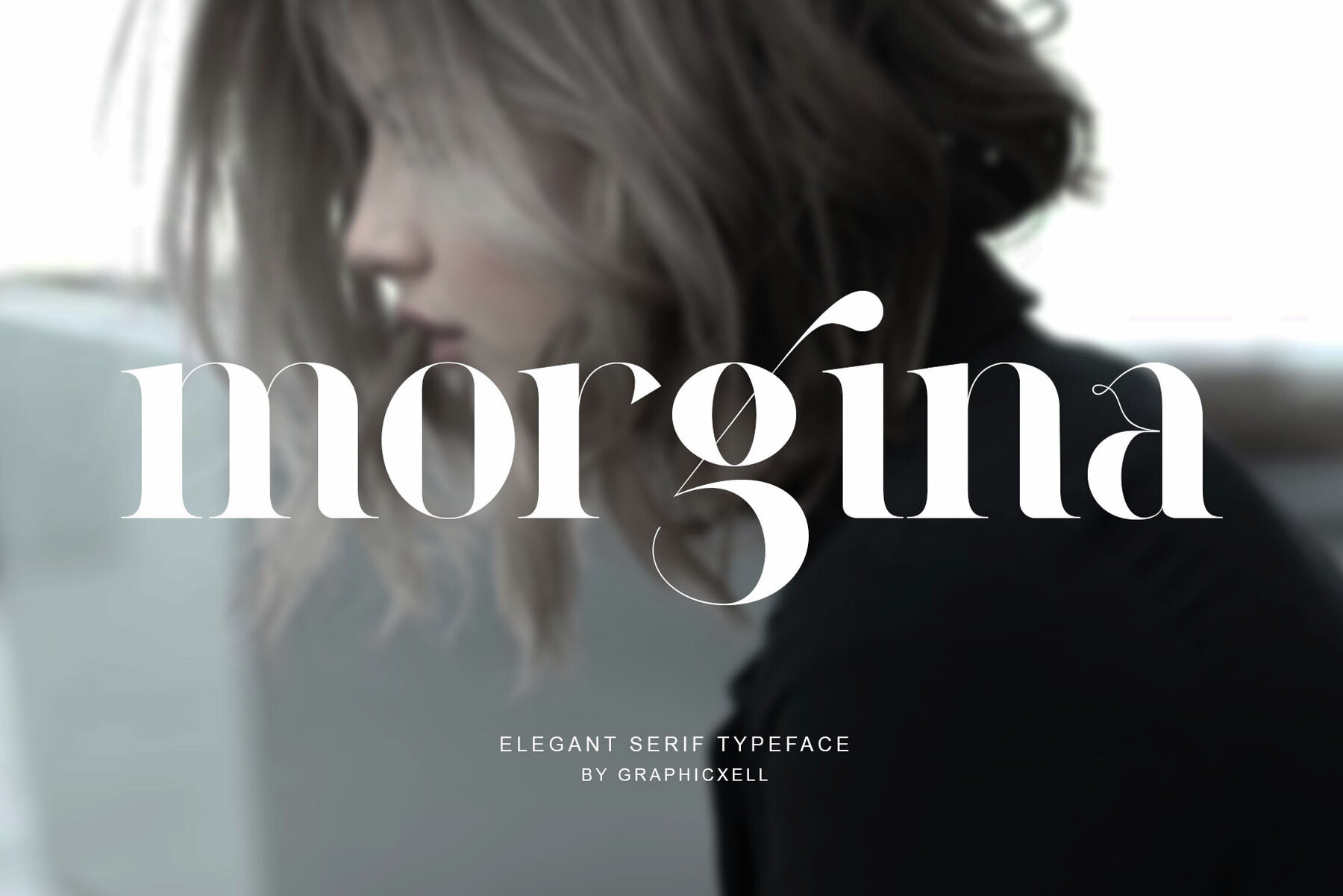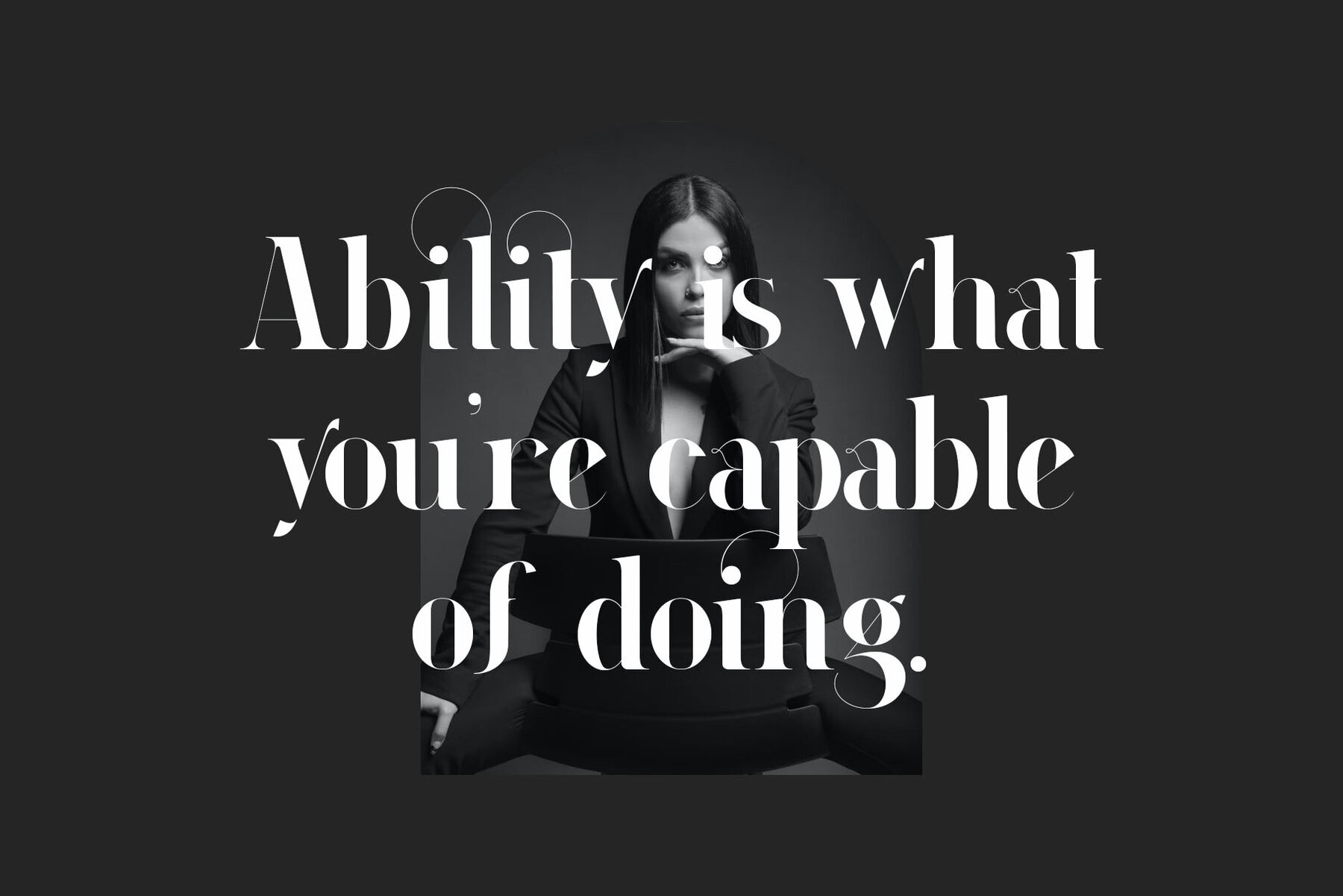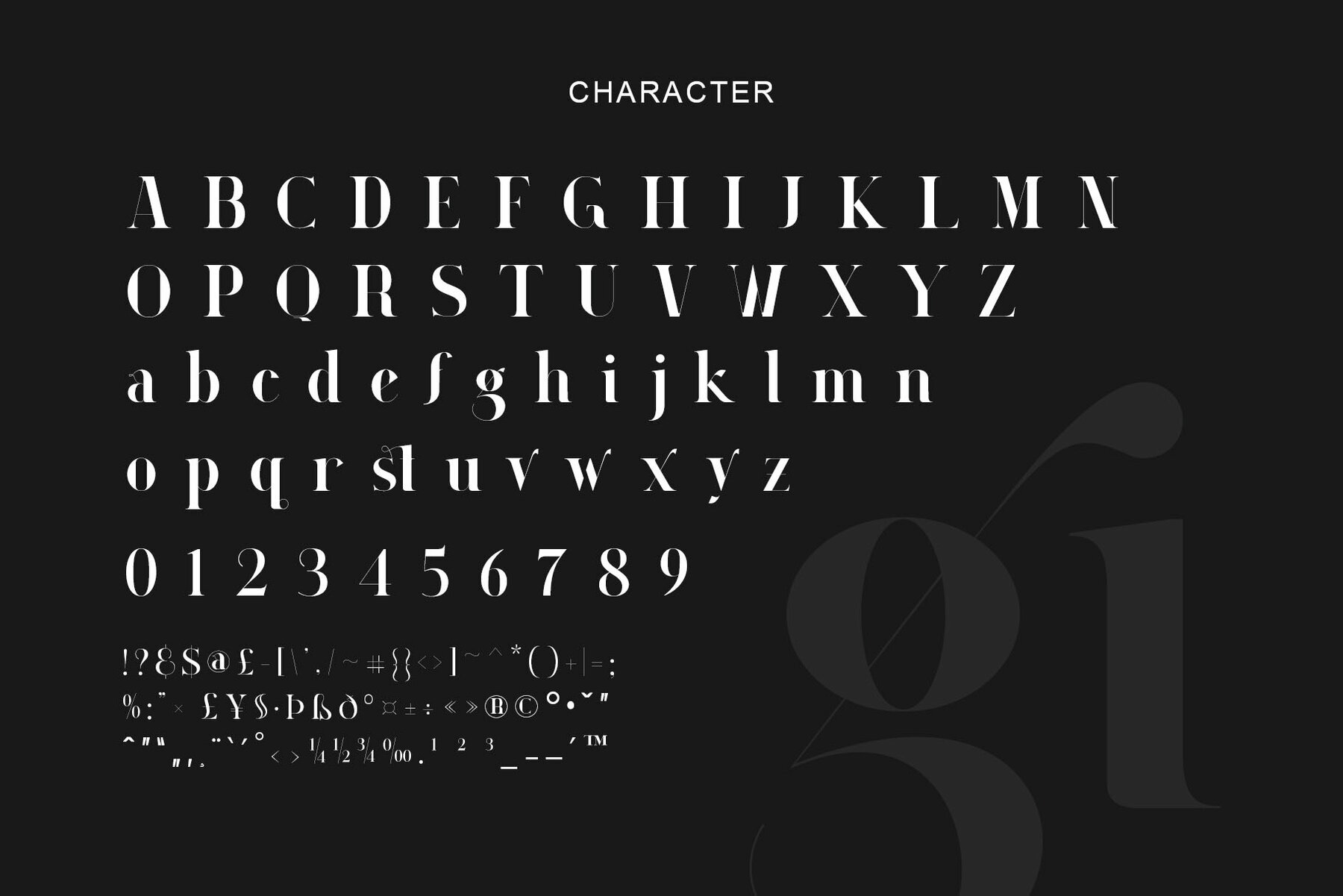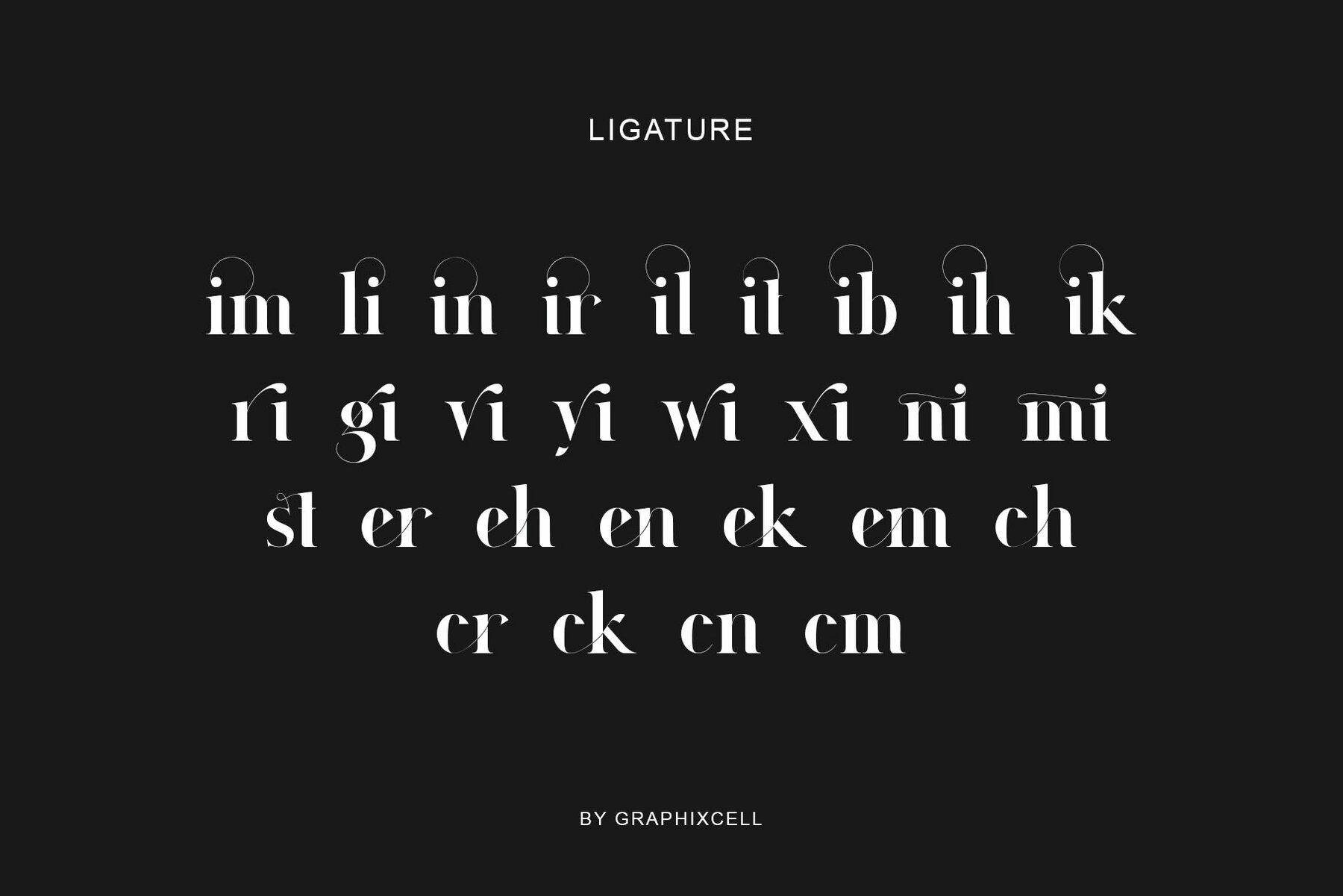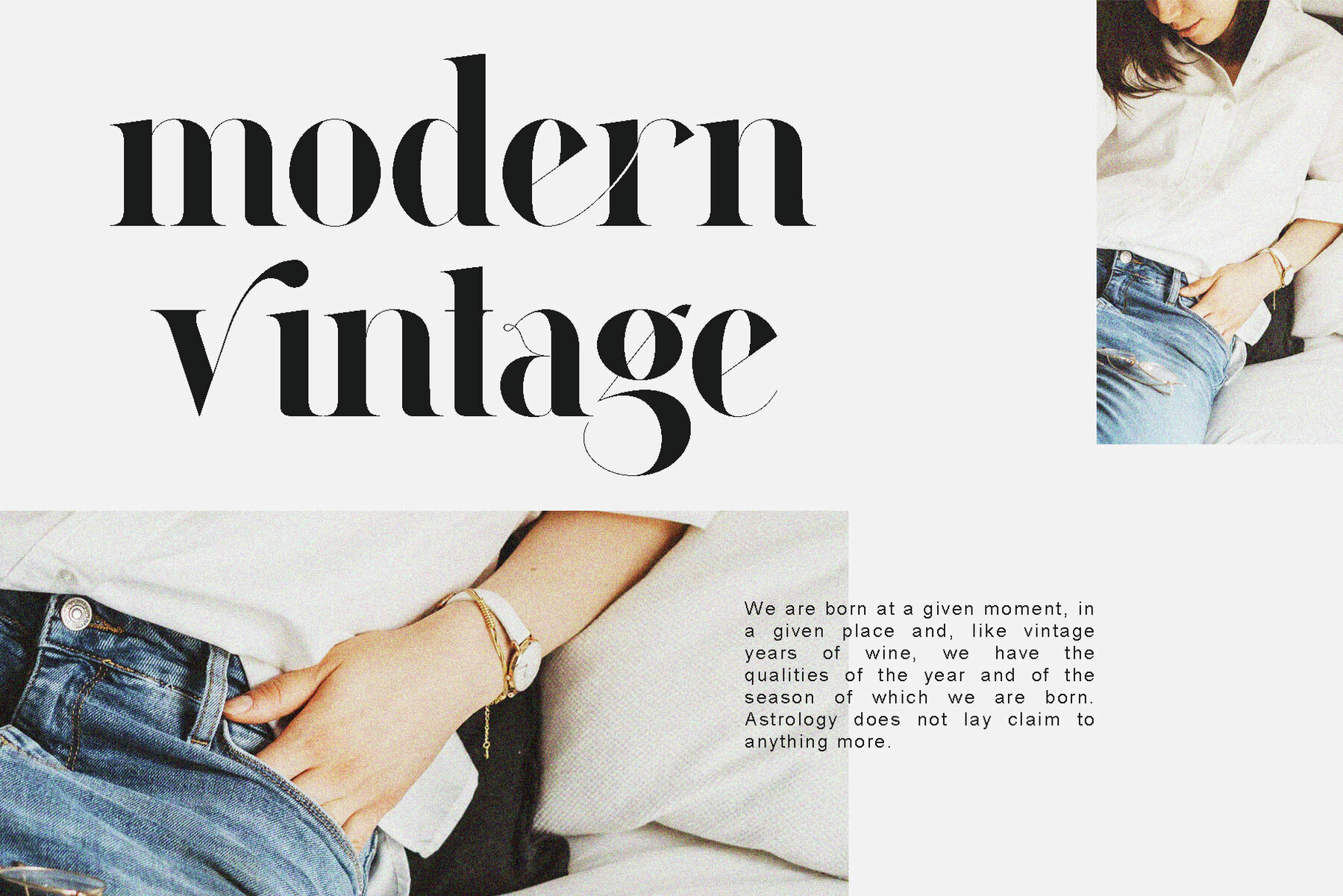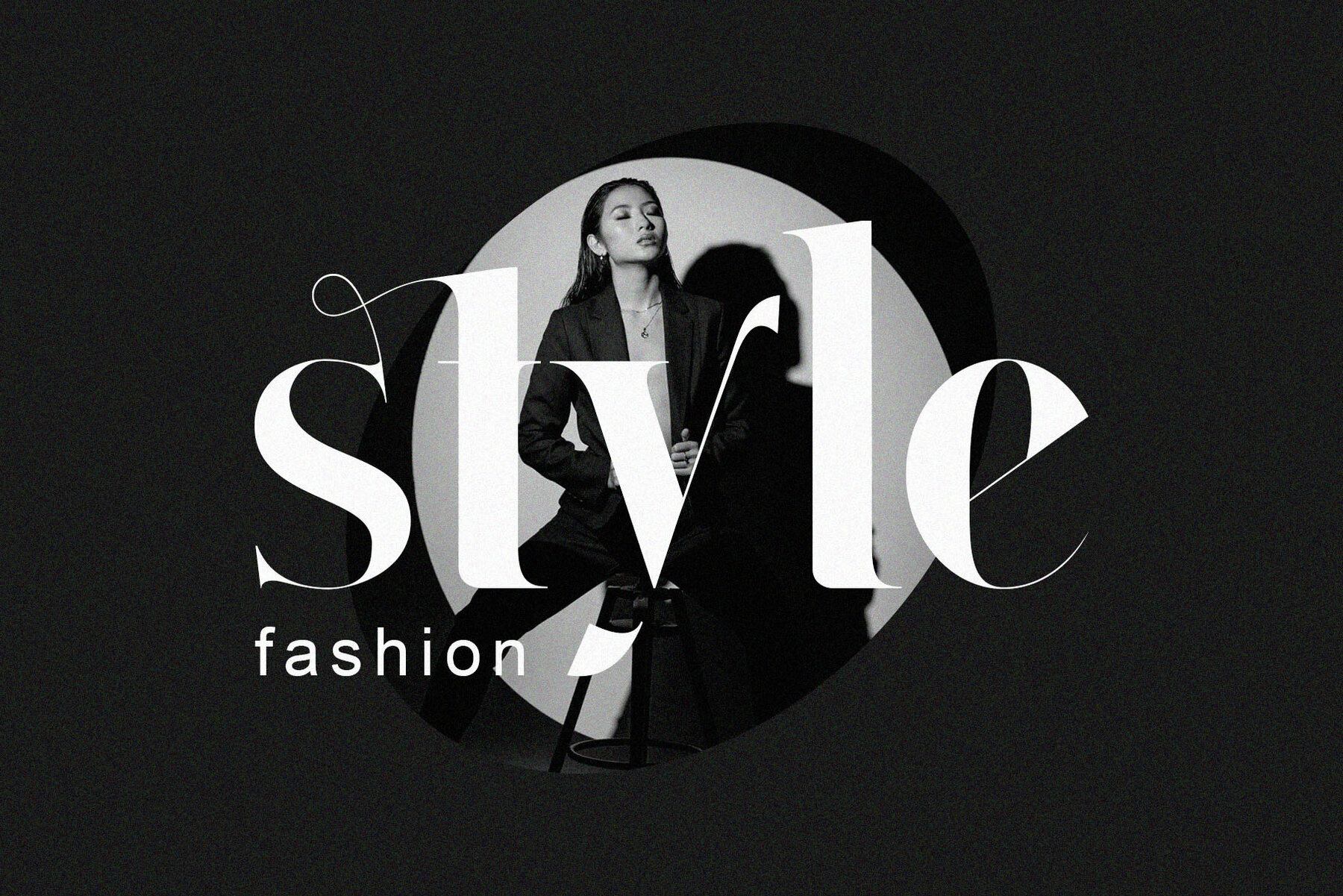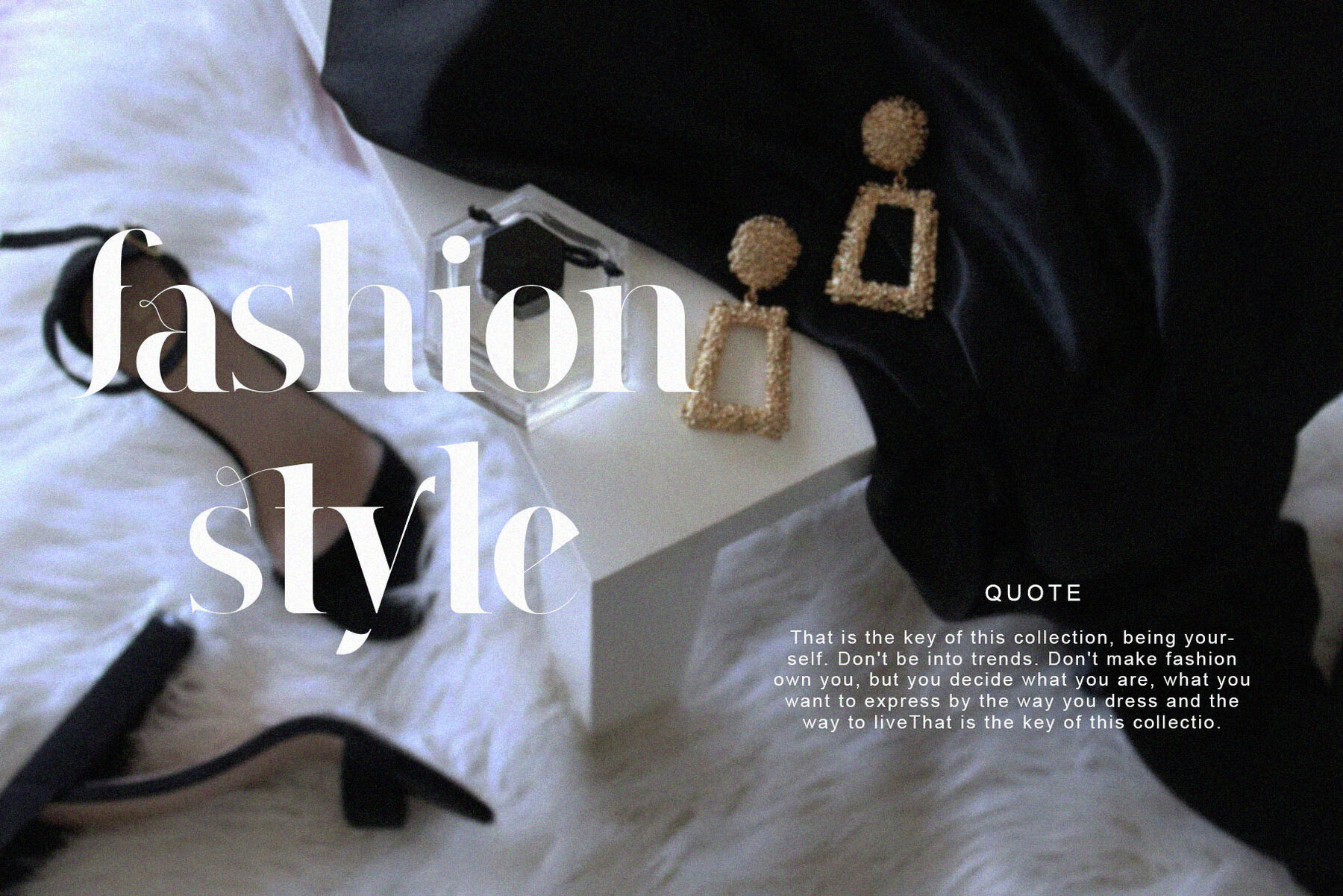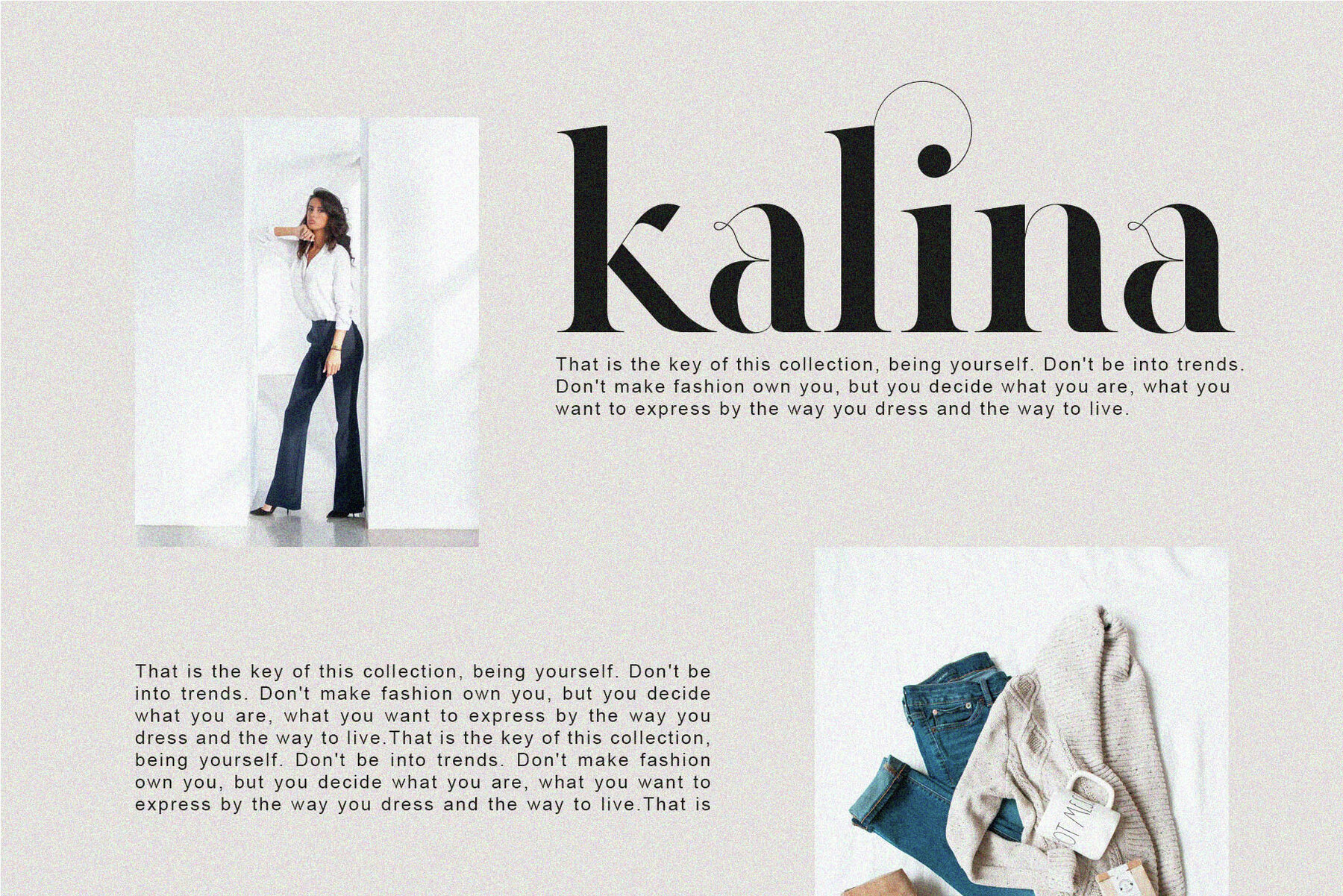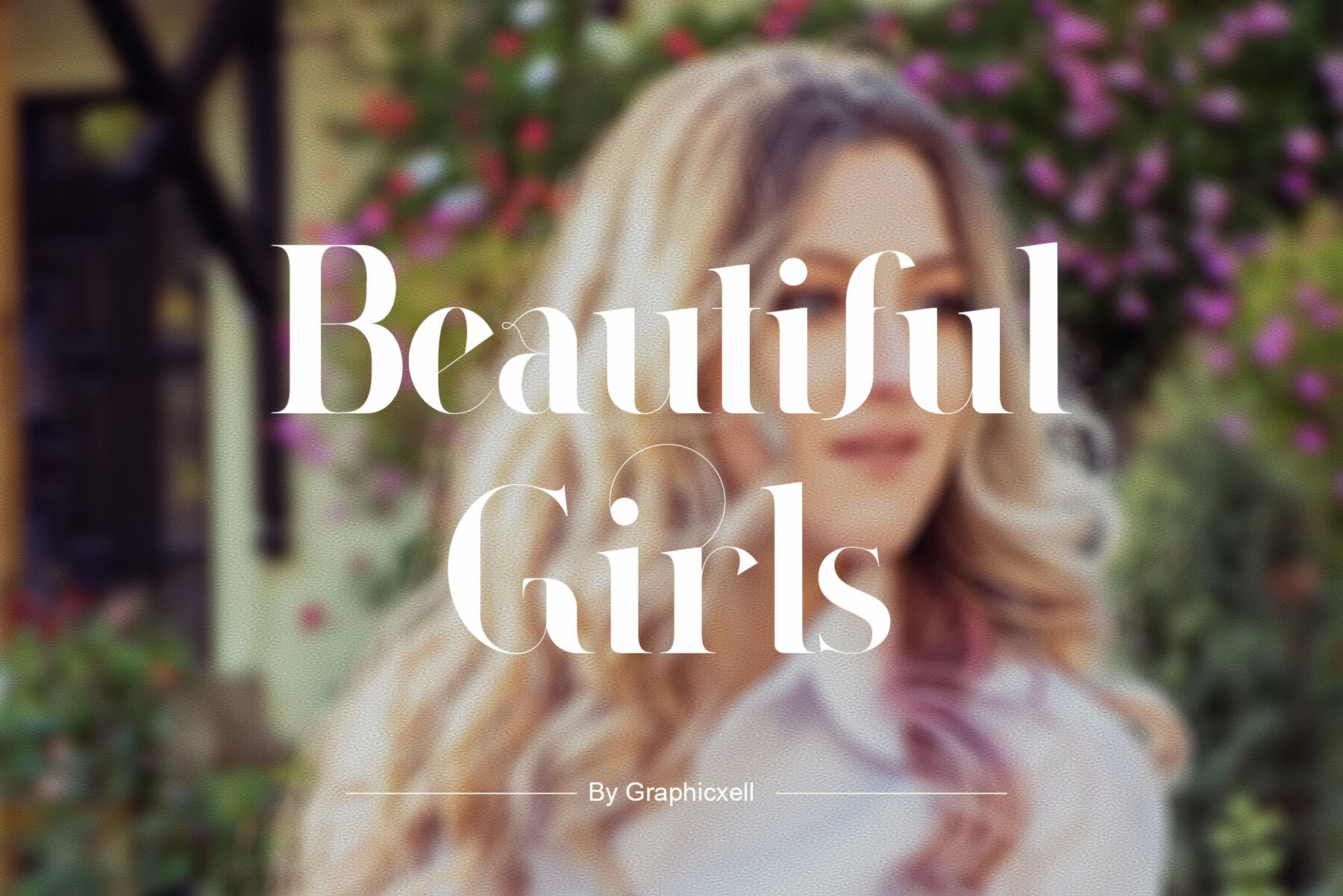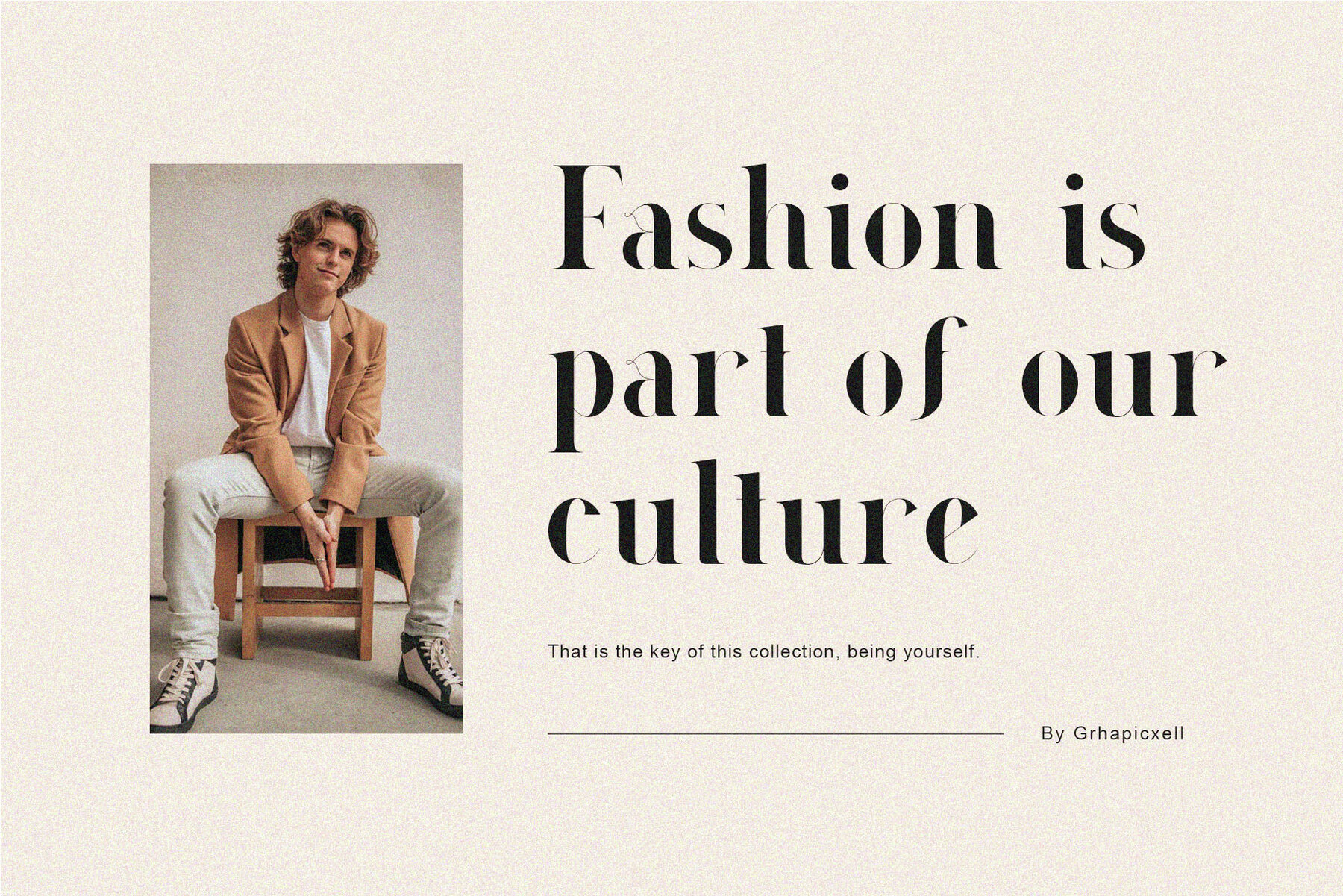
Morgina Font
Morgina Regular
inspired by the famous minimalist logo perfect for the purposes of designing templates, brochures, videos, advertising branding, logos, invitation, layout design, elegant crafting, beauty design and more.